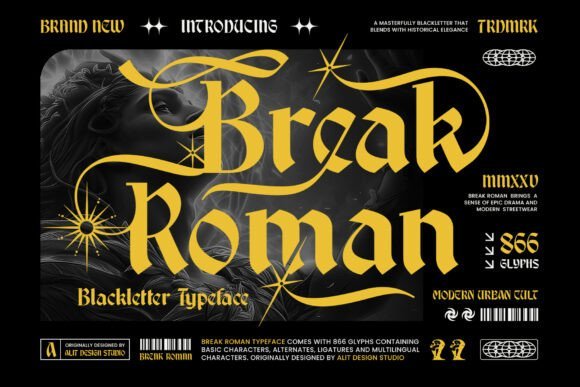
Introduction to Break Roman Font
Step into the world of Break Roman, a highly stylized display typeface that boldly merges the gothic soul of blackletter tradition with the sharp precision of modern serif design.
Developed by Alit Design Studio, this typeface isn’t just a fontβ€”it’s a typographic experience infused with epic drama, rebellious flair, and meticulous craftsmanship Break Roman evokes a visual language that transcends centuries, bringing medieval gravitas into the heart of contemporary visual culture.
Key Features of Break Roman Font